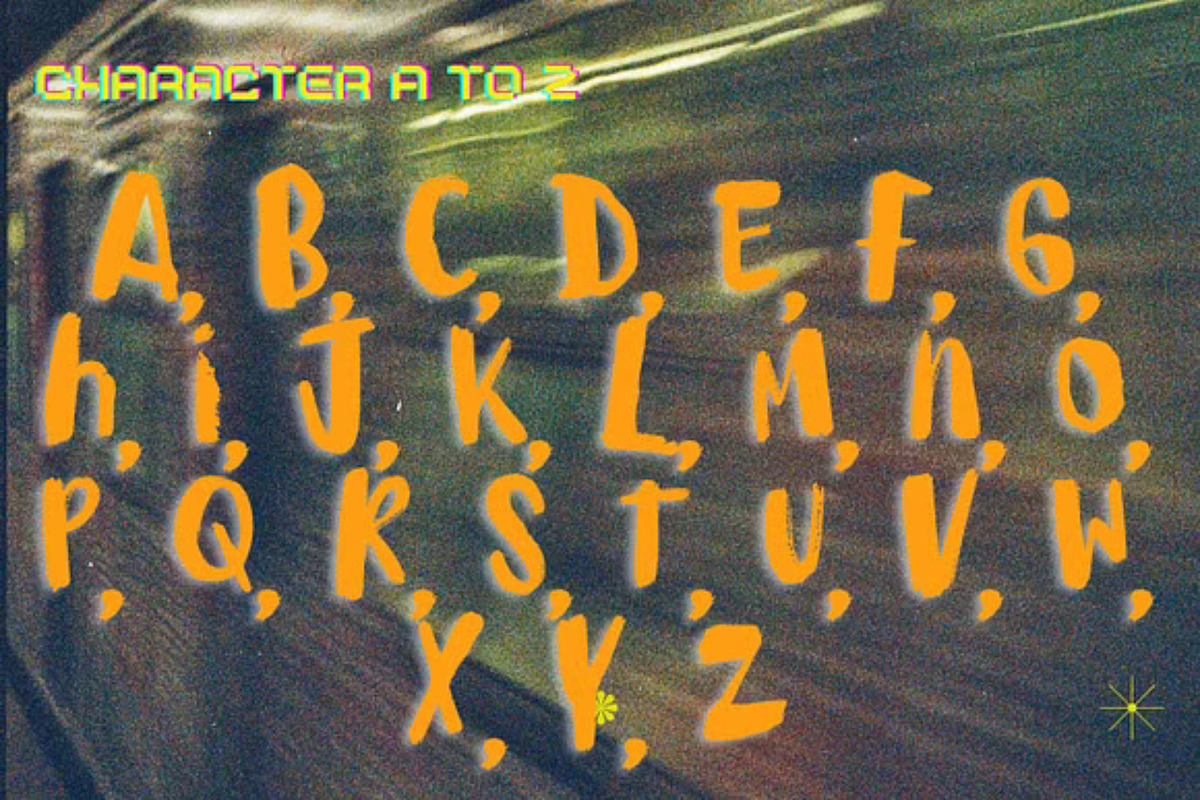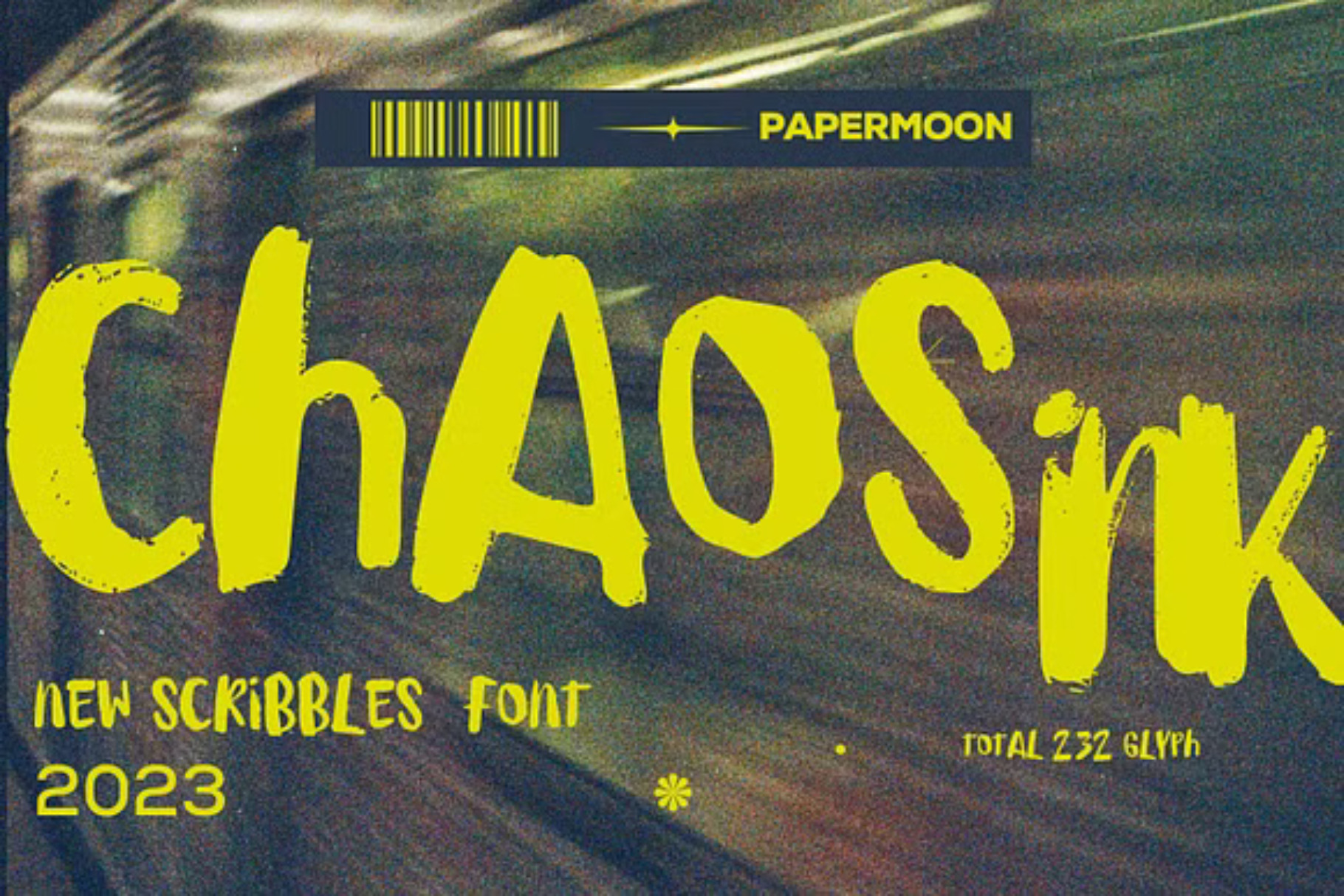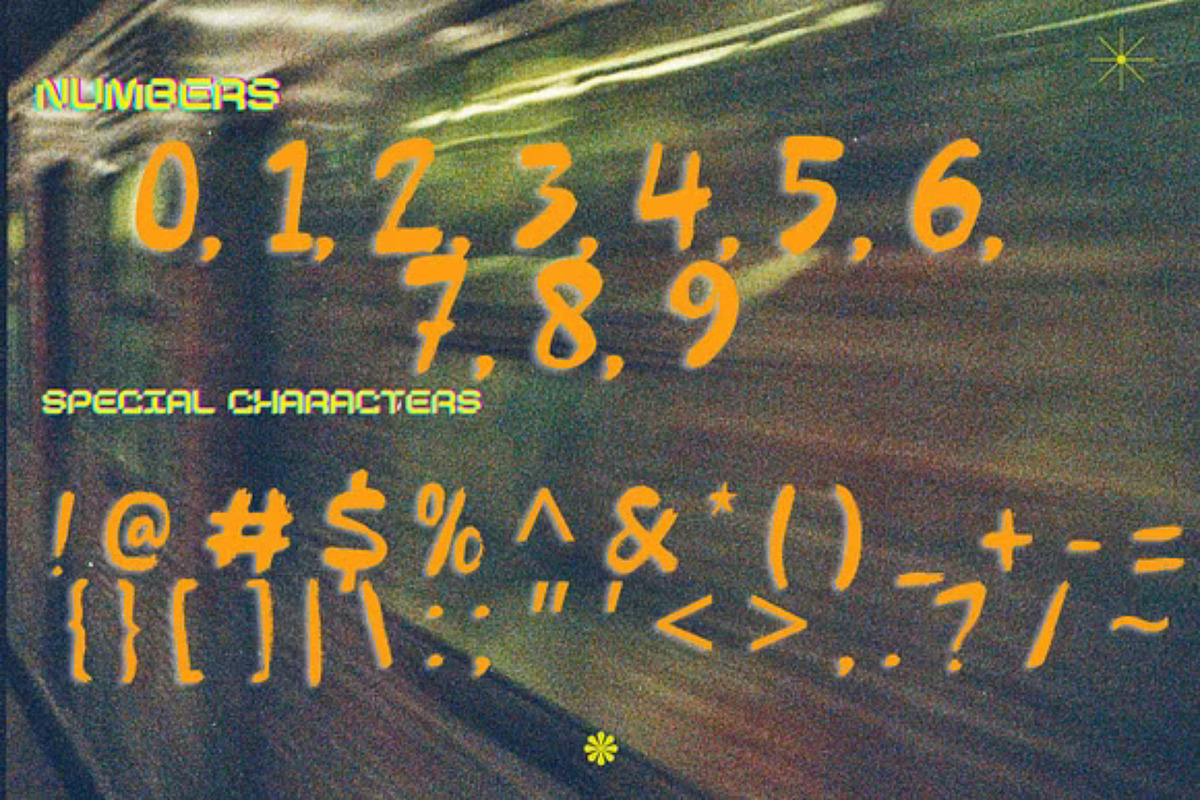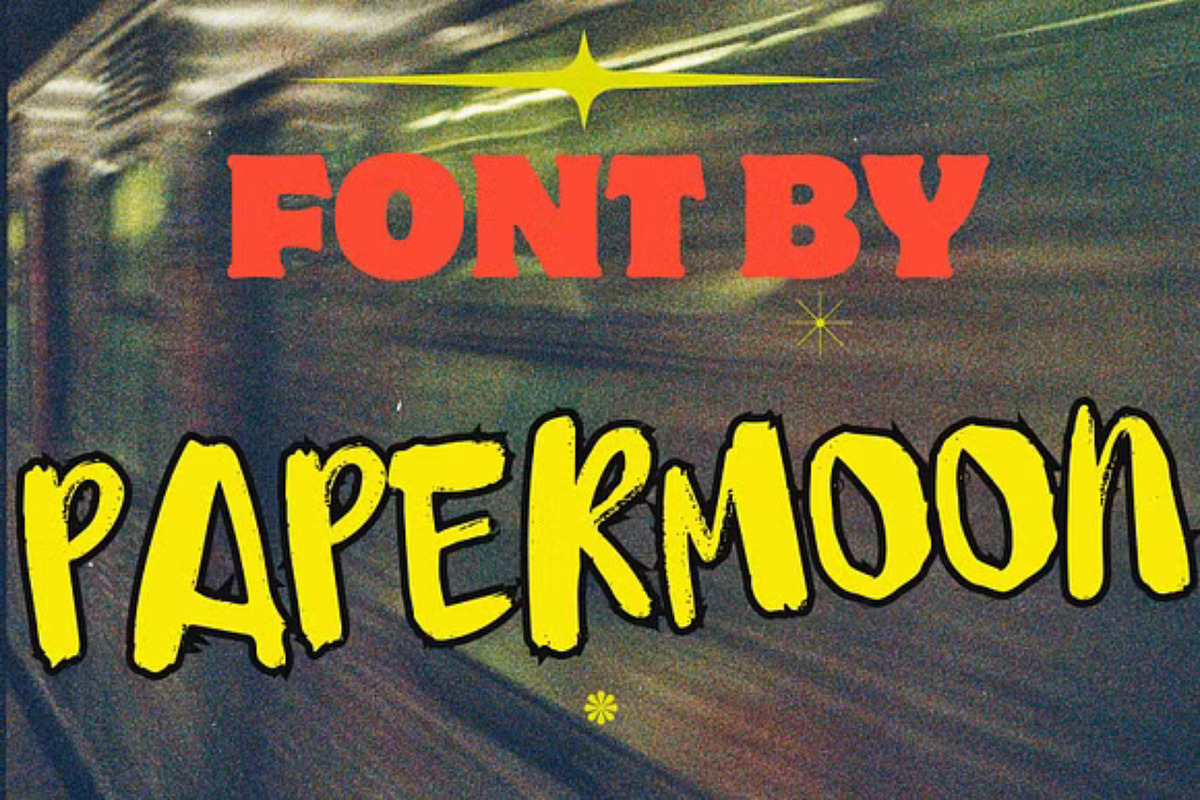
ChaosInk - Scribbles Script Font
Introducing ChaosInk: Amplify Your Visual Impact!
Are you looking to add more intensity to your designs? ChaosInk's handwritten typeface delivers the bold, playful, and dynamic style you need. Its realistic scribble effect brings volume and character to your projects, allowing you to create striking visuals that stand out. With unique alternates and ligatures, you have the freedom to mix and match characters to fit your creative vision.
This versatile typeface is perfect for packaging, posters, quotes, editorial work, and branding projects that require a bold and eye-catching presence.
⦿ Key Features: